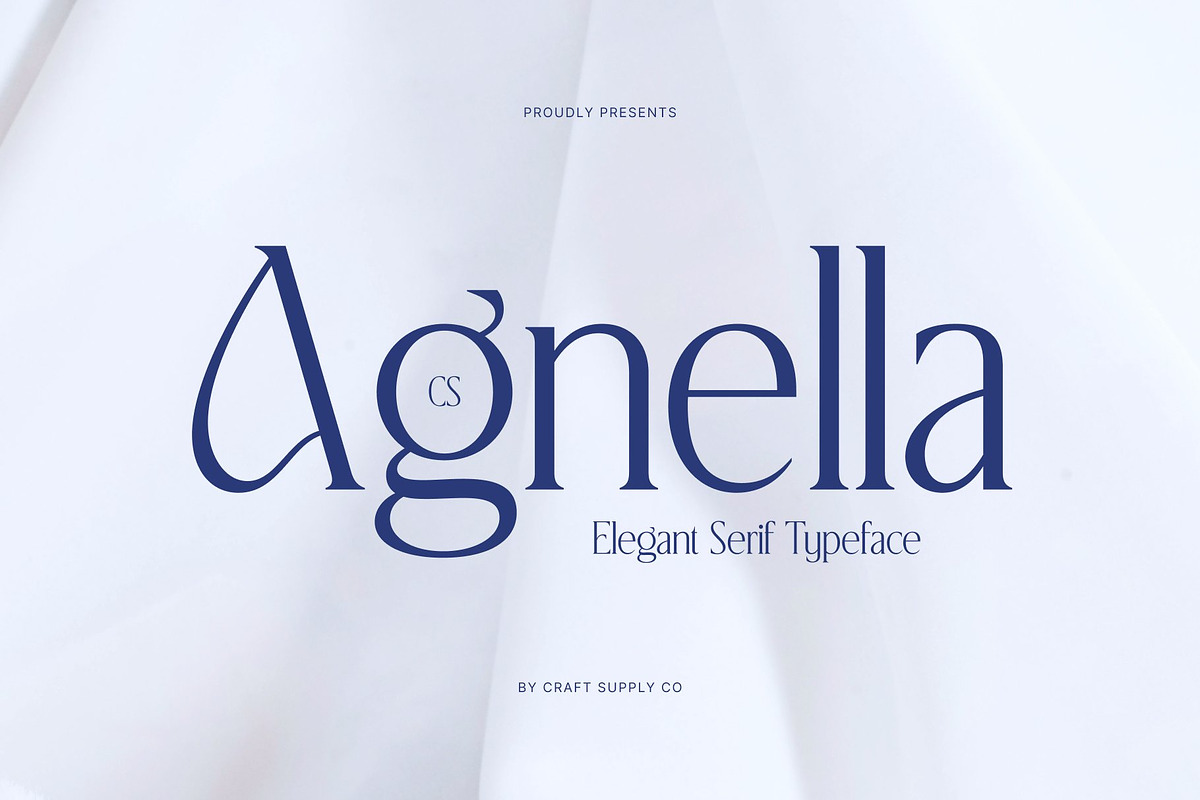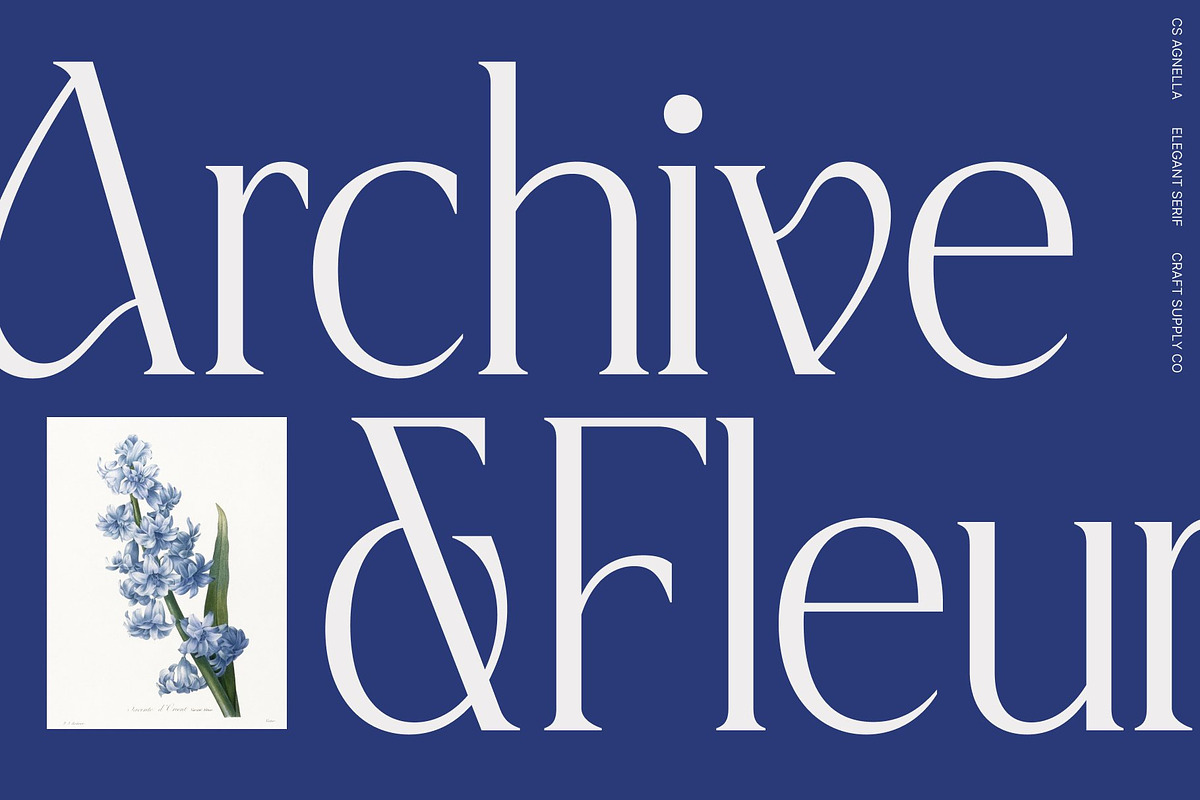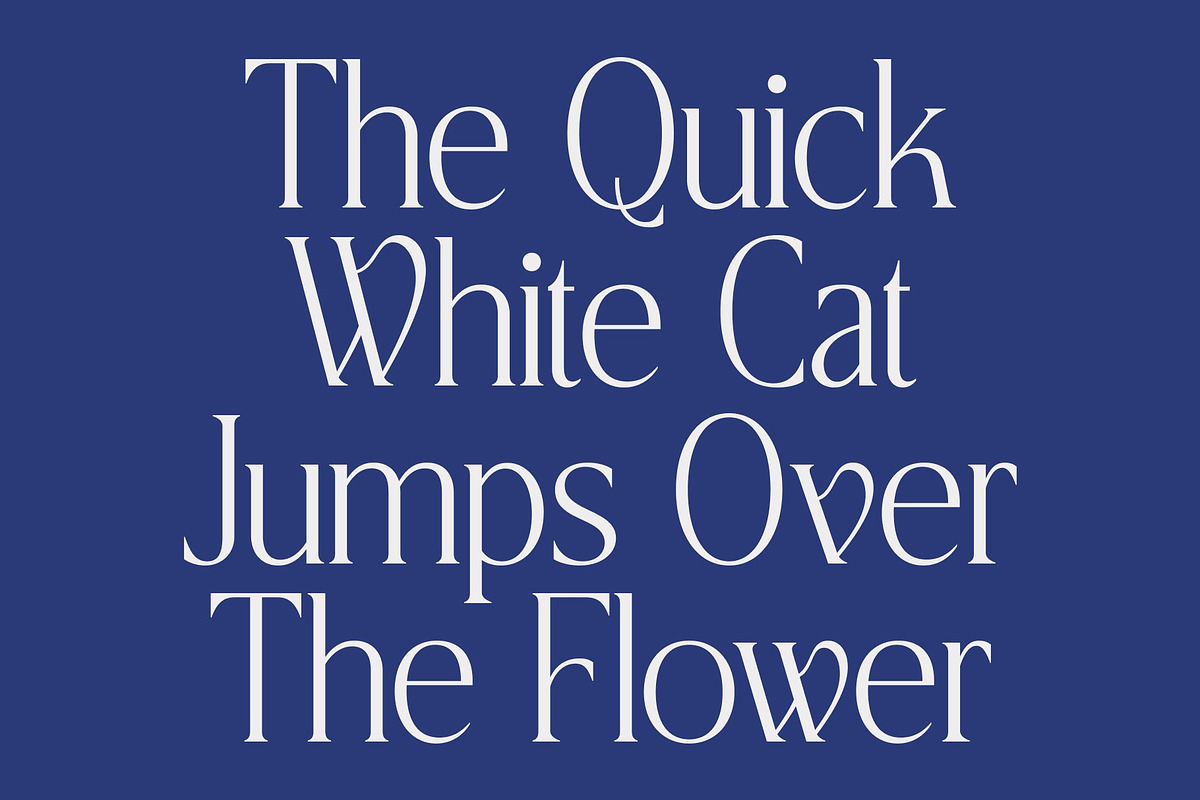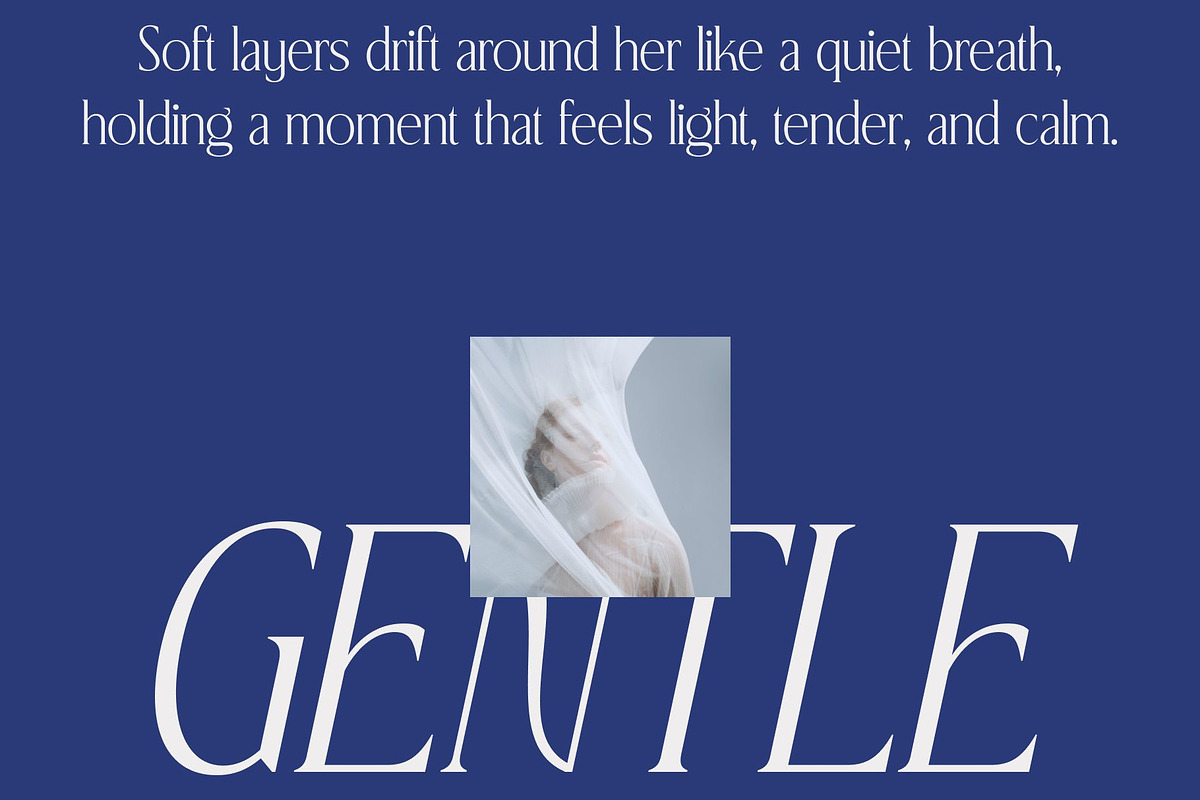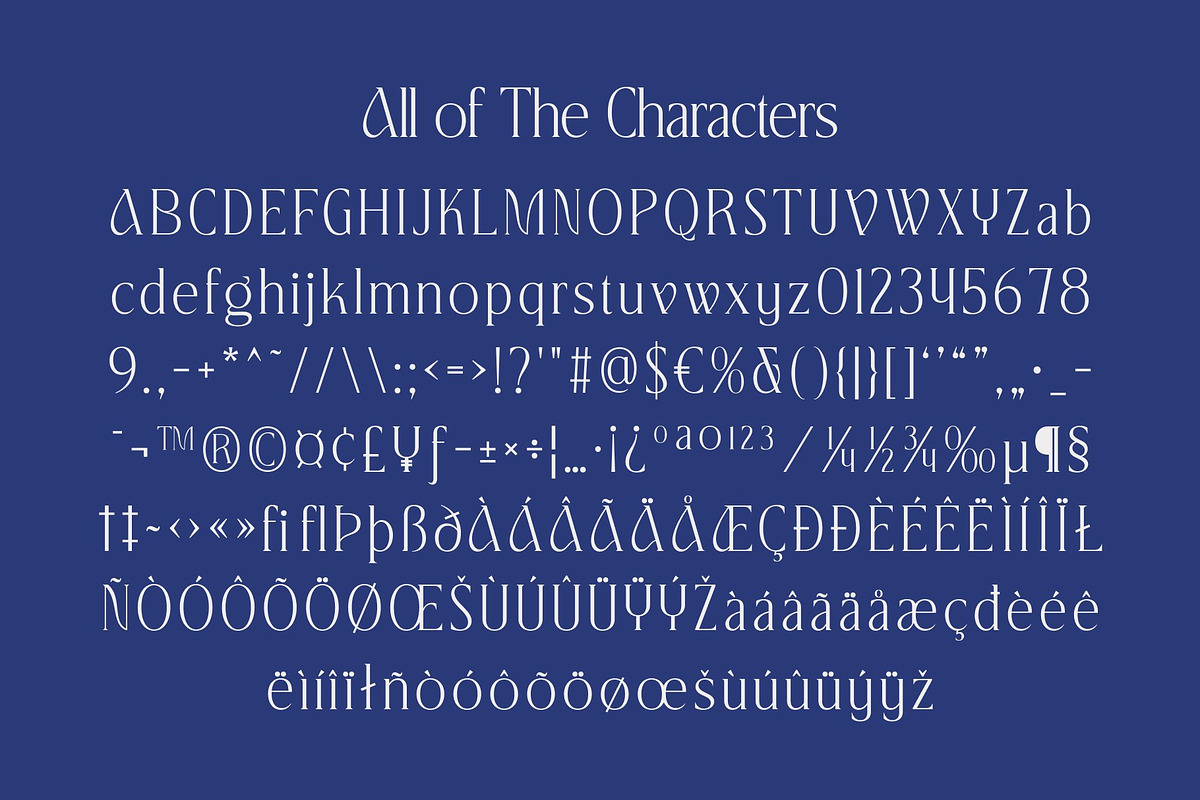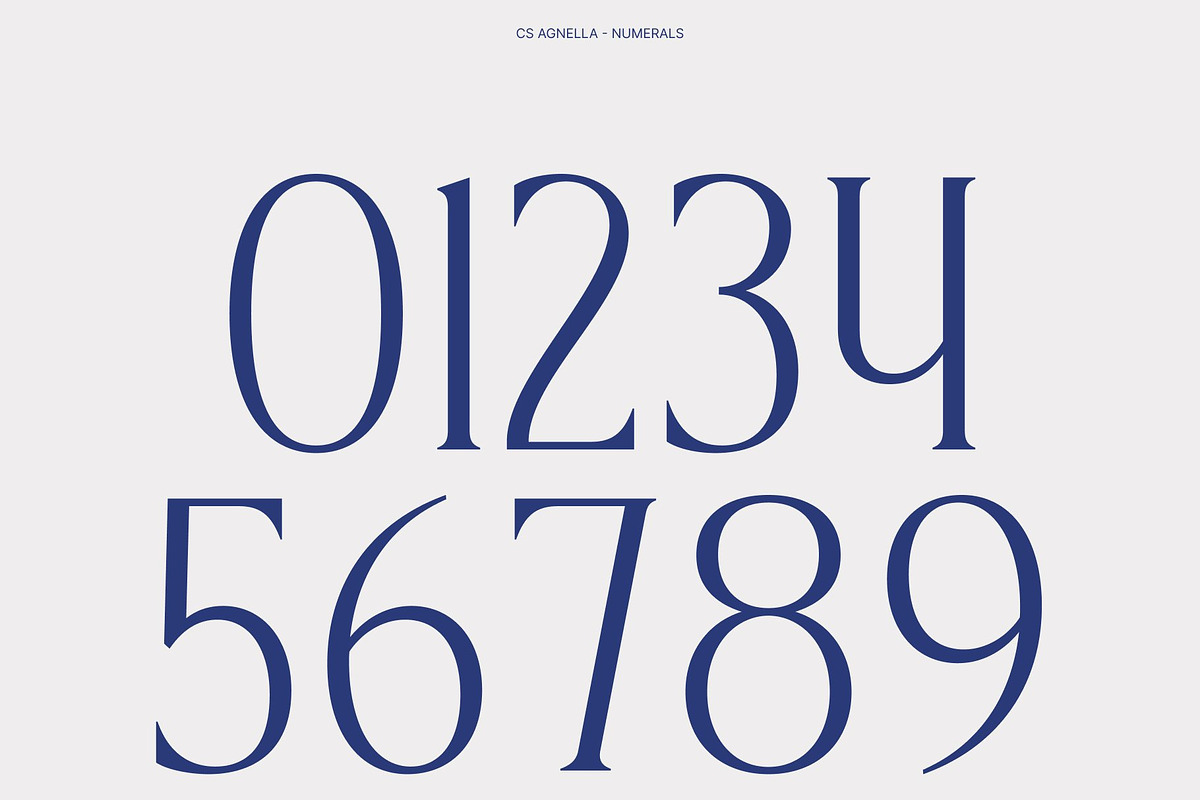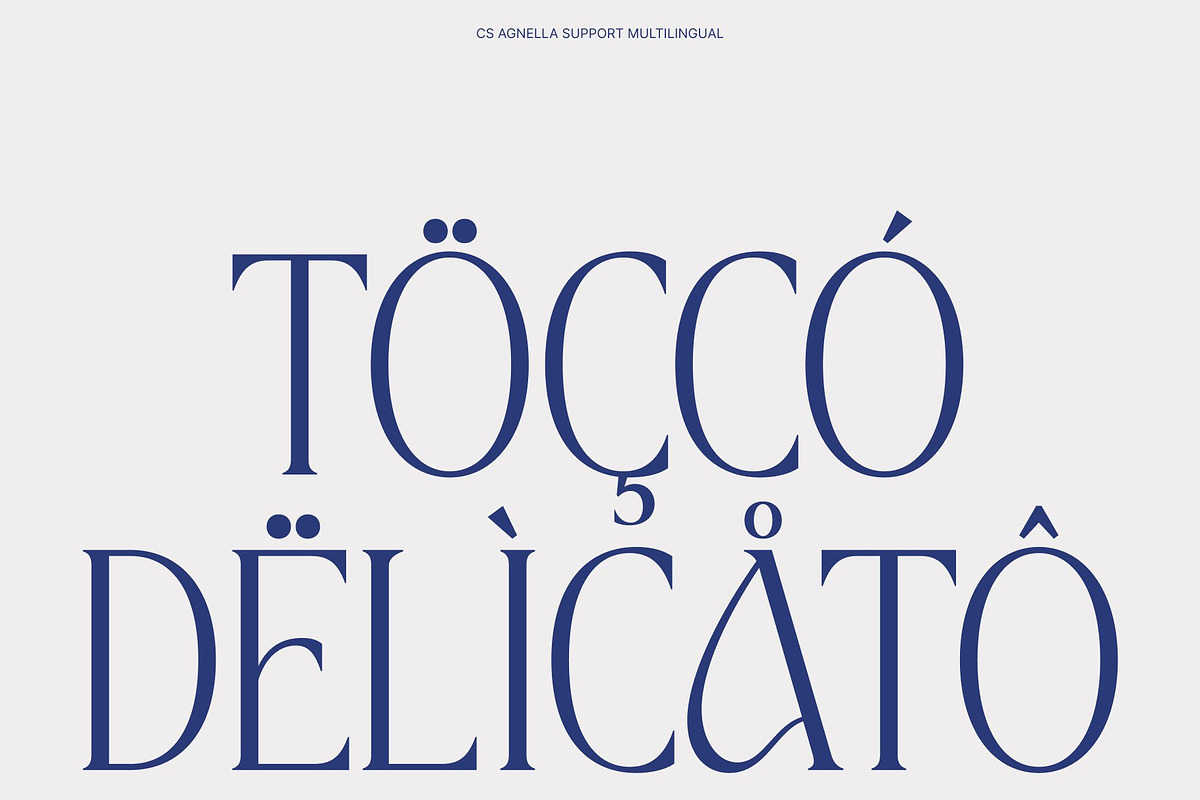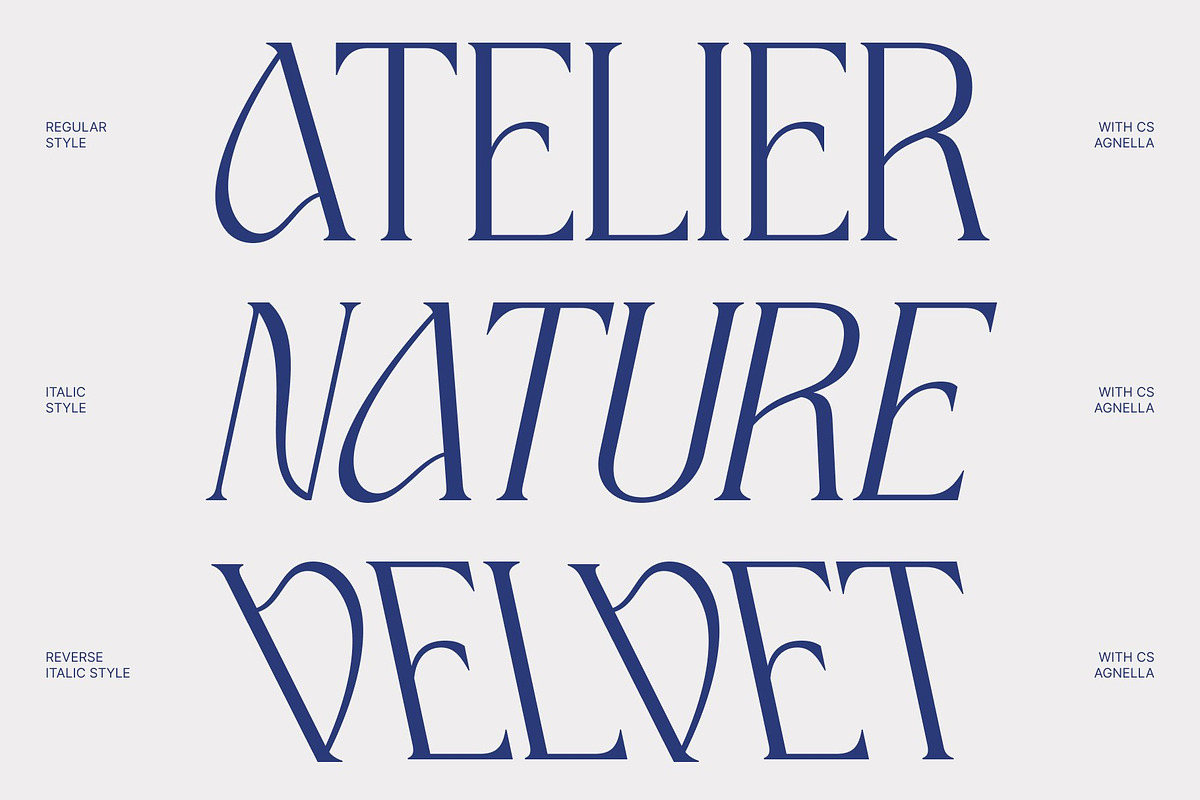
CS Agnella – Elegant Serif Font
CS Agnella – Elegant Serif with Refined Luxury
Elegant Serif Font with Sophisticated Character CS Agnella is an elegant serif font designed to exude sophistication, refinement, and timeless beauty. Its carefully crafted curves and balanced proportions create a high-end aesthetic that blends classic serif traditions with modern nuances. Each letterform is designed to convey grace and clarity, making a perfect choice for designs that demand elegance, poise, and visual sophistication.
Refined Curves for a Luxurious Appearance The standout feature of this font lies in its refined curves and smooth transitions. Each stroke flows seamlessly, creating a sense of harmony and luxury throughout the typeface. The elegant serifs add structure and distinction, giving the font a polished and professional appearance.
Classic Meets Modern for Versatile Design This font bridges the gap between classic serif charm and contemporary design sensibilities. Its timeless appeal allows it to work beautifully in traditional editorial layouts while still feeling fresh and modern. The font conveys authority, elegance, and sophistication, making it an ideal choice for projects that require both style and substance.
Perfect for Books, Branding, and Fashion Design Designed for versatile high-end use, this font is perfect for advanced book typography, editorial layouts, fashion branding, packaging, and luxury marketing materials. Its elegant serif forms lend sophistication to every project, making headlines, body text, and logos feel distinctive and refined.
- CS Agnella Regular
- CS Agnella Italic
- CS Agnella Reverse Italic